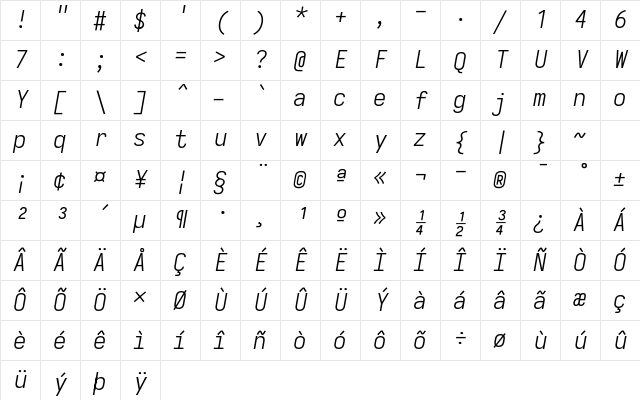
Iosevka Light Extended Oblique Regular
Foundry: Belleve Invis
Designer: Belleve Invis
Iosevka Light Extended Oblique Family
Complete Iosevka Light Extended Oblique Regular glyph index. Displaying only characters natively supported by Iosevka Light Extended Oblique Regular font.
Design Context for Iosevka Light Extended Oblique
Iosevka Light Extended Oblique is a composed and adaptable typeface that performs quietly and consistently across a wide range of design contexts. The slanted form adds forward momentum and visual energy. Its slender proportions lend an understated elegance to any composition.
Pro Tip: Use Iosevka Light Extended Oblique for emphasis, pull quotes, and subheadings where its slanted energy can add rhythm to the layout.